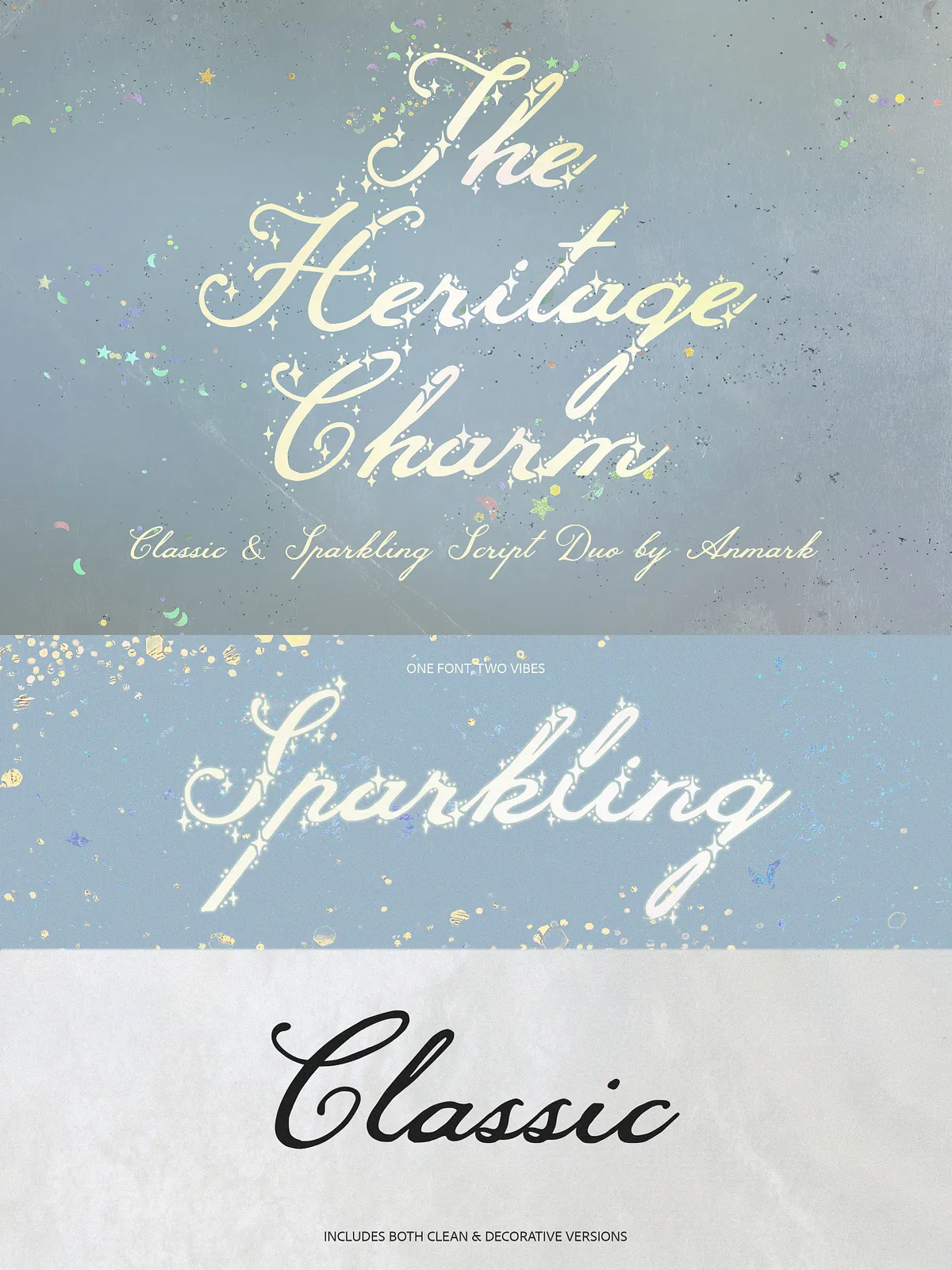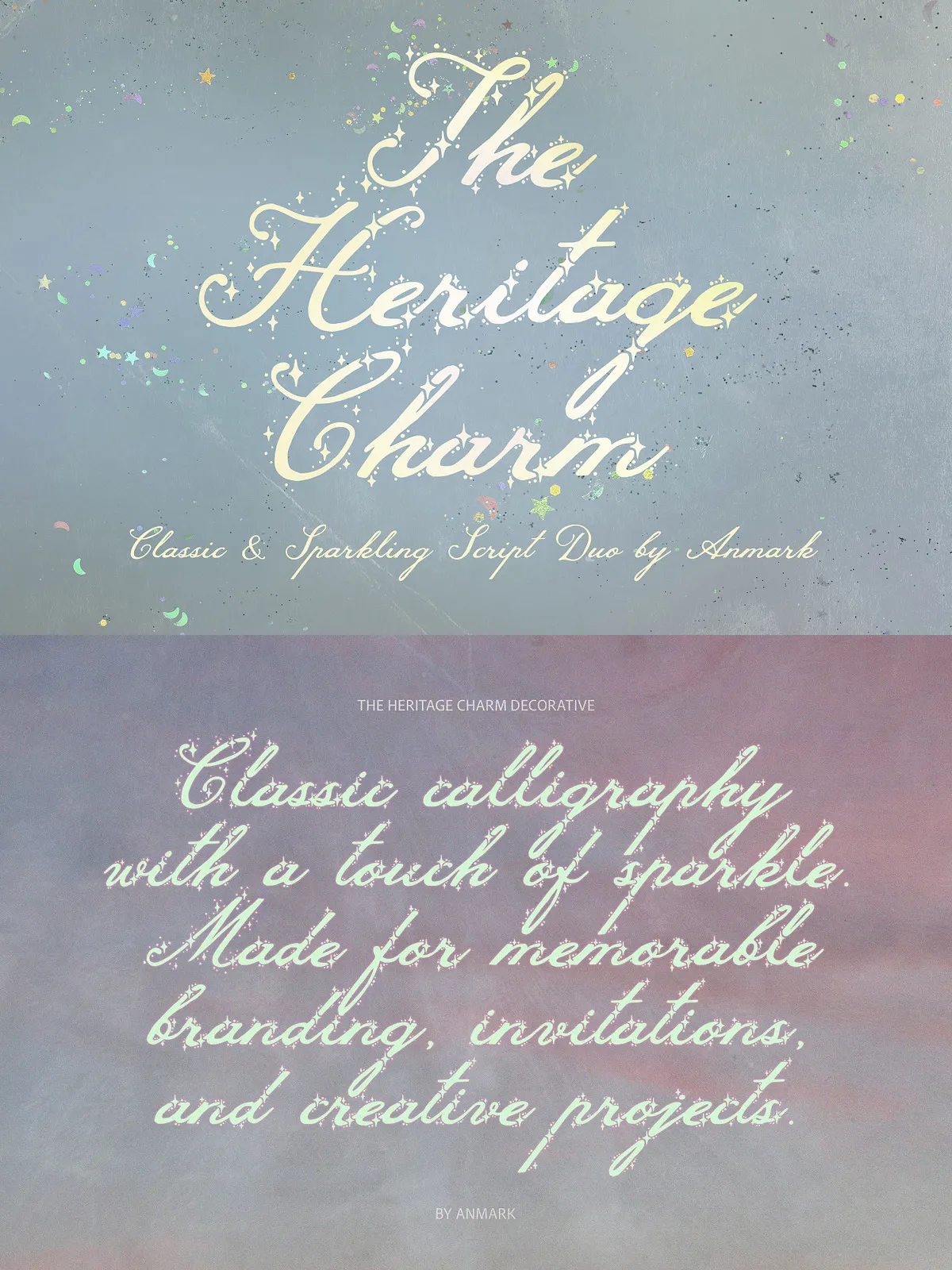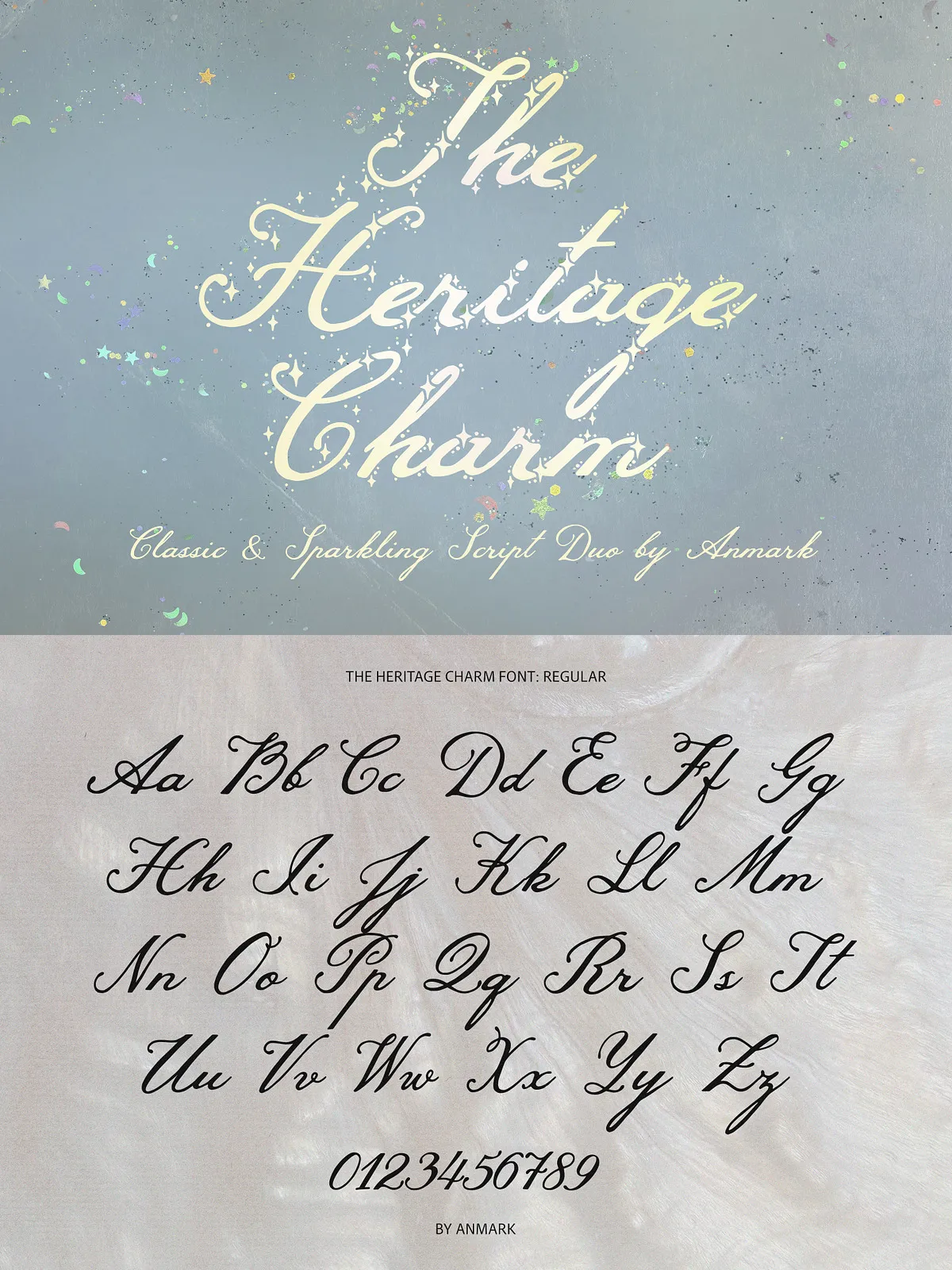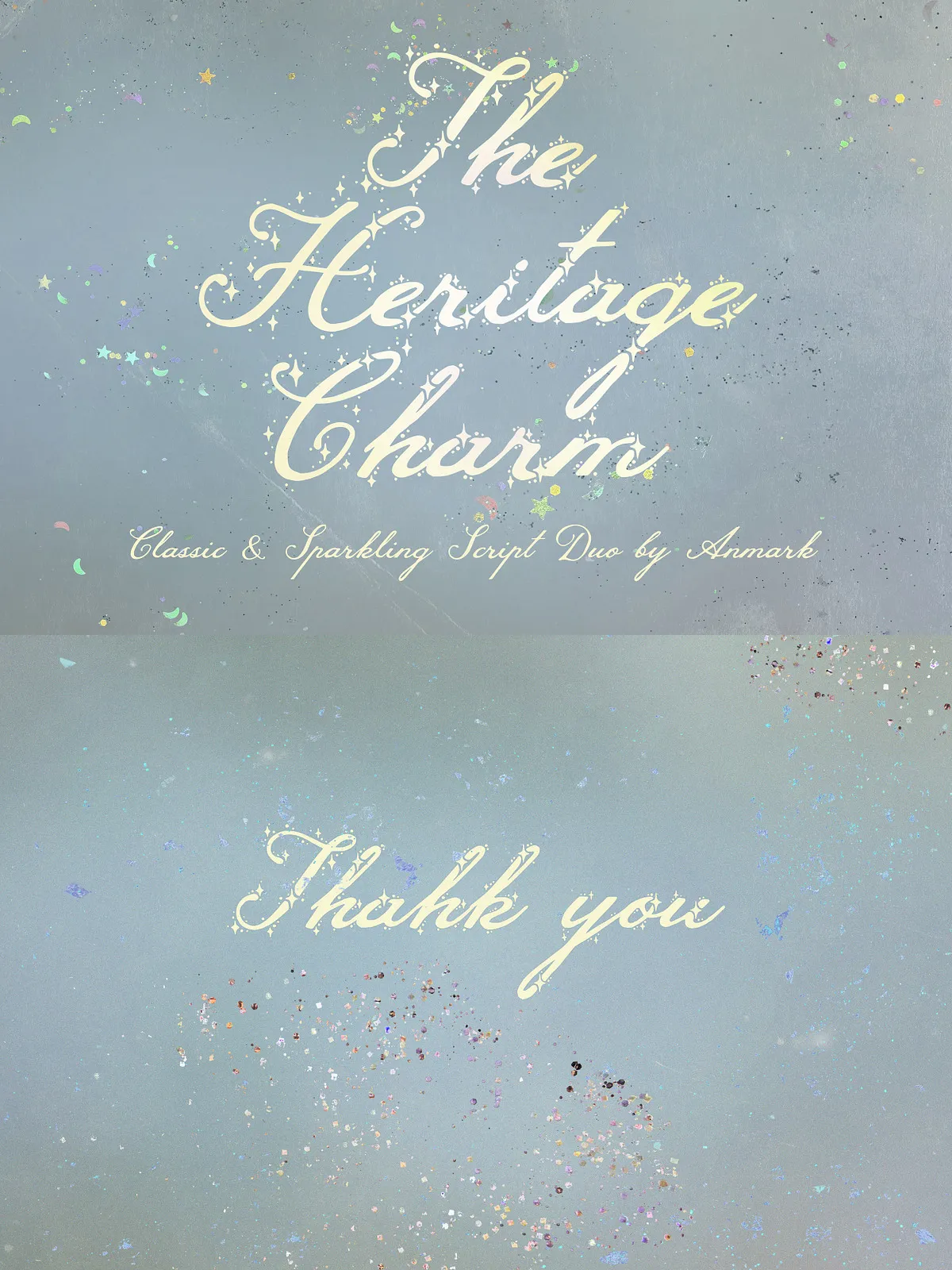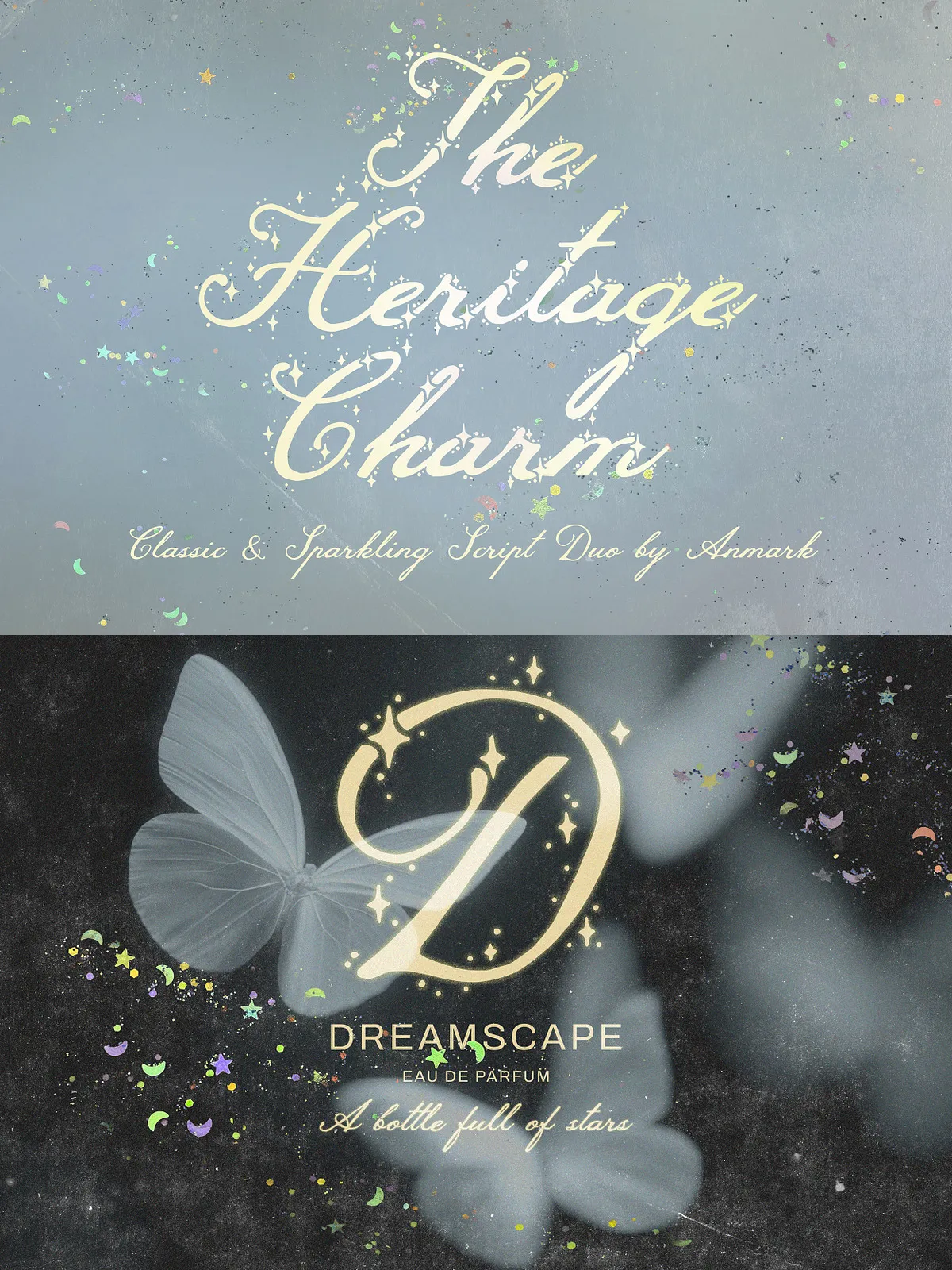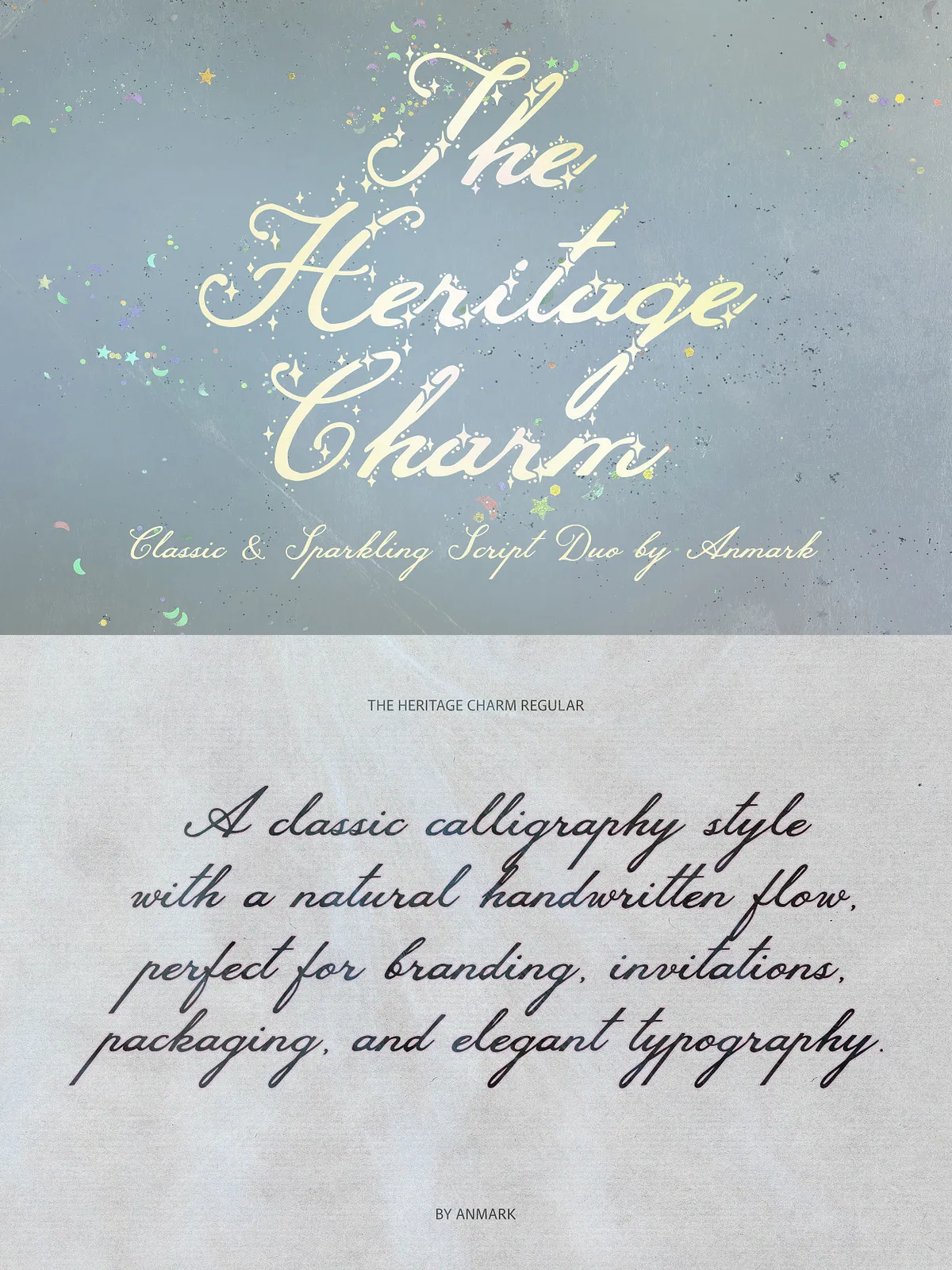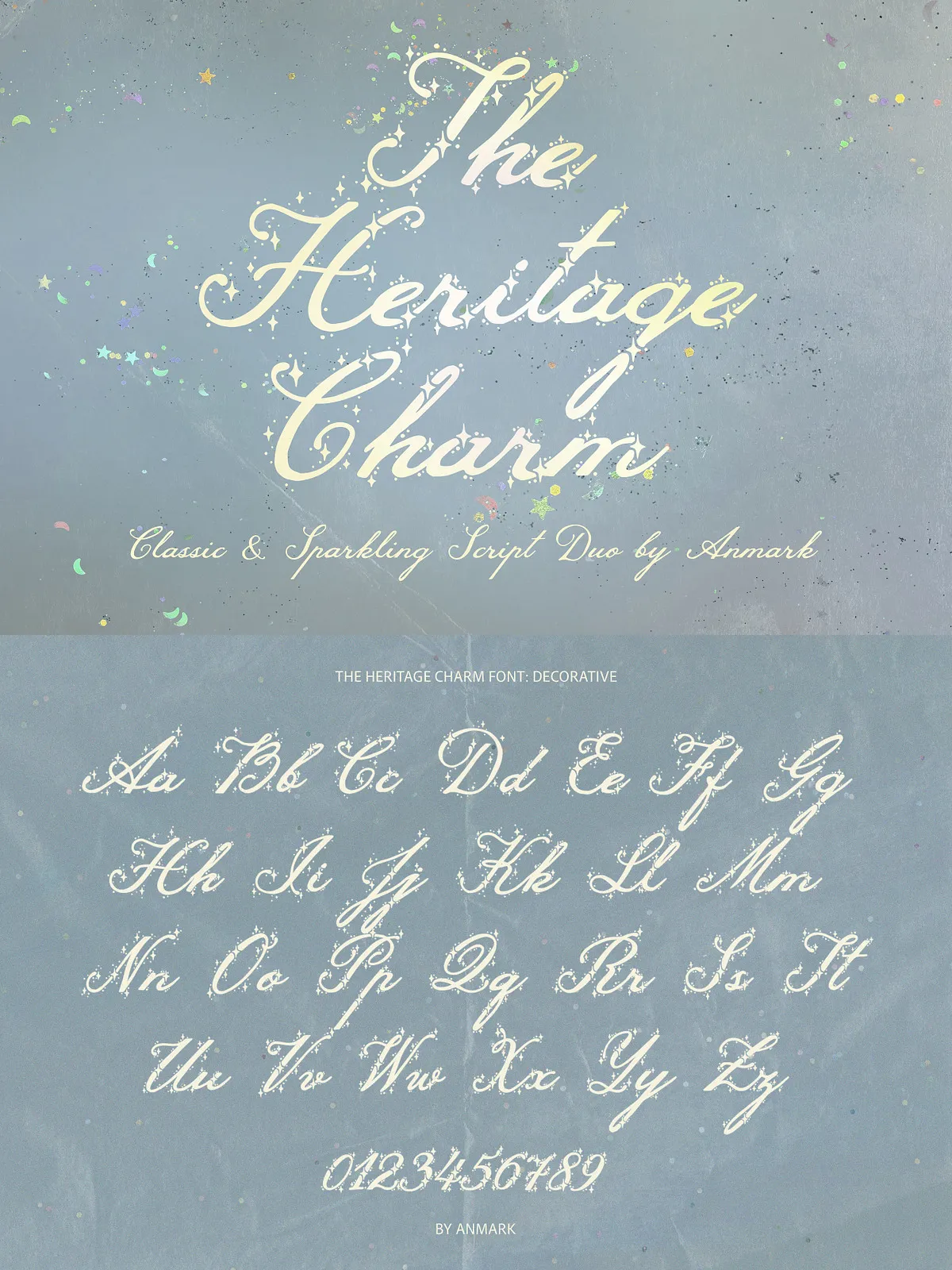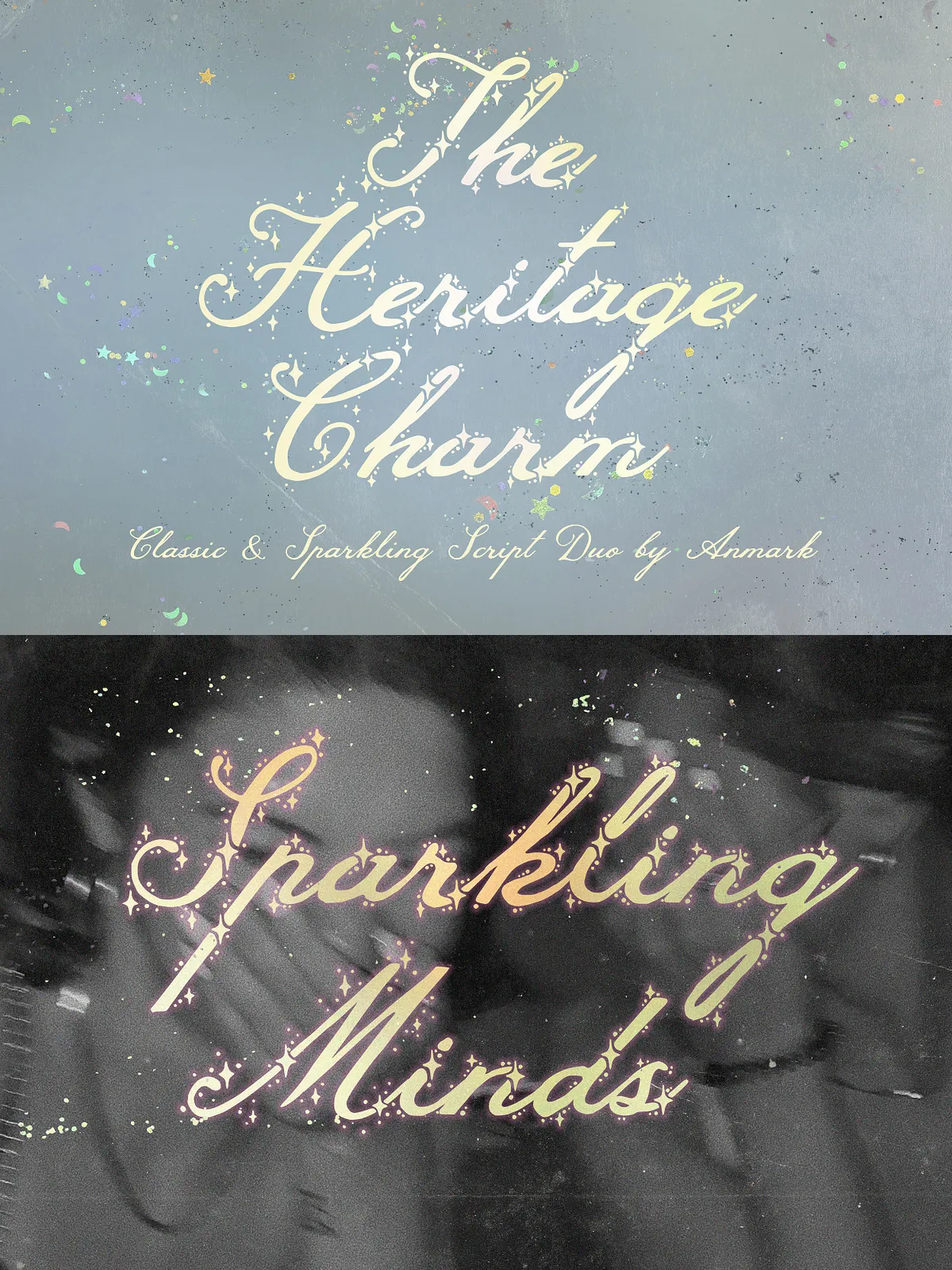
The Heritage Charm arrives as a refined script font duo that captures the elegance of classic calligraphy and the warmth of handwritten keepsakes. Designed to perform across print and digital projects, the family includes two complementary styles: a graceful Regular script with natural flow and a Decorative variant embellished with subtle stars and sparkling details. Use them independently or combine the styles to build layered typographic systems that feel personal, polished, and memorable.
Font Styles
Regular Style — Graceful, Approachable Calligraphy
The Regular style delivers fluid strokes and slightly relaxed proportions that imitate elegant, effortless handwriting. It reads clearly at display sizes while preserving fine, calligraphic details that lend luxury without pretension. Use the Regular style for brand wordmarks, signatures, and layouts that require a poised, human touch.
Decorative Style — Sparkling, Storytelling Letterforms
The Decorative style weaves delicate star motifs and ornamental details into the letterforms, introducing visual interest and theatrical charm. This variation intensifies personality while retaining the script’s refined structure, making it ideal for invitations, product accents, and cover art where a distinctive finishing touch adds emotional resonance.
Recommended Uses
Weddings & Events
Apply The Heritage Charm to invitations, RSVP cards, programs, and signage to create cohesive wedding collateral that feels intimate and curated. The font elevates traditional stationery with calligraphic grace while the Decorative variant adds celebratory flourish.
Luxury Branding & Logos
Design premium brand identities and elegant logos that command attention without overpowering other brand elements. The Regular style forms confident wordmarks while the Decorative style provides accent glyphs or alternate treatments for campaign headers and packaging seals.
Packaging & Product Design
Use the duo to distinguish beauty, fragrance, fashion, and artisanal food products on shelf and online. The Heritage Charm communicates heritage, craftsmanship, and care—qualities that reinforce perceived value and desirability.
Editorial, Book Covers & Greeting Cards
Integrate the script into editorial spreads, book covers, and greeting cards to introduce emotional depth and hand-crafted appeal. The font supports headline hierarchies and decorative pull-quotes that draw the reader’s eye.
Pairing & Styling Tips
Pair The Heritage Charm with neutral sans-serifs or restrained serifs to preserve hierarchy and readability. Use the script for headlines, logos, and accents; reserve clean sans or serif families for body copy. Control contrast by adjusting letter-spacing and weight in surrounding type, and apply the Decorative style sparingly to preserve its impact. Consider combining Regular and Decorative styles within the same composition—Regular for primary wording and Decorative for highlights or monograms.